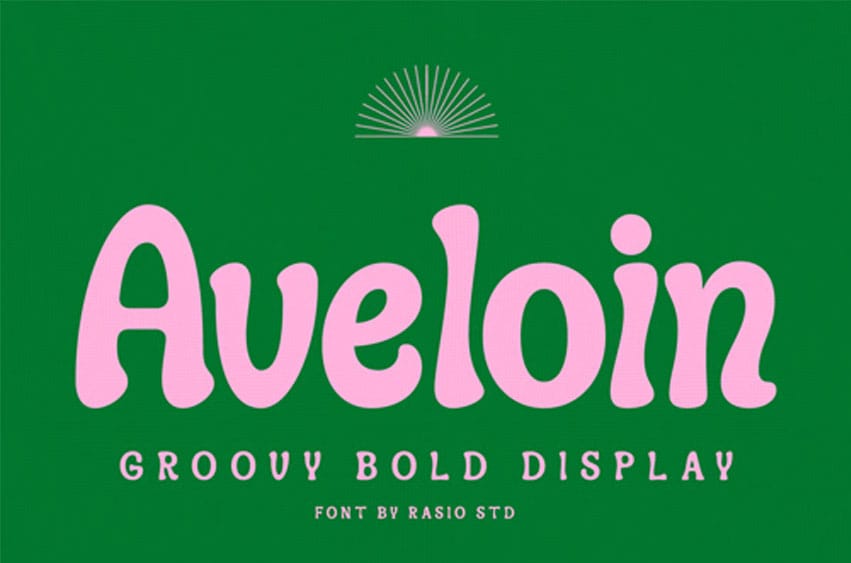
Aveloin Font is a playful, retro-inspired bold display typeface that brings joy and character to any design. With smooth curves, bouncy proportions, and a fun 70s vibe, it’s perfect for attention-grabbing headlines, colorful branding, nostalgic posters, quirky packaging, and vibrant social media designs. Aveloin includes uppercase and lowercase letters, numerals, punctuation, and multilingual support. Aveloin adds a punch of personality and flair to your visual storytelling.
Relevance and Use Cases is perfect for creatives looking to evoke a cheerful, nostalgic tone in their work. From retro fashion branding and bold event posters to social media templates, kid-friendly packaging, and music festival graphics, this font shines wherever a bold and lively expression is needed.
Main Features:
- Ligatures Support